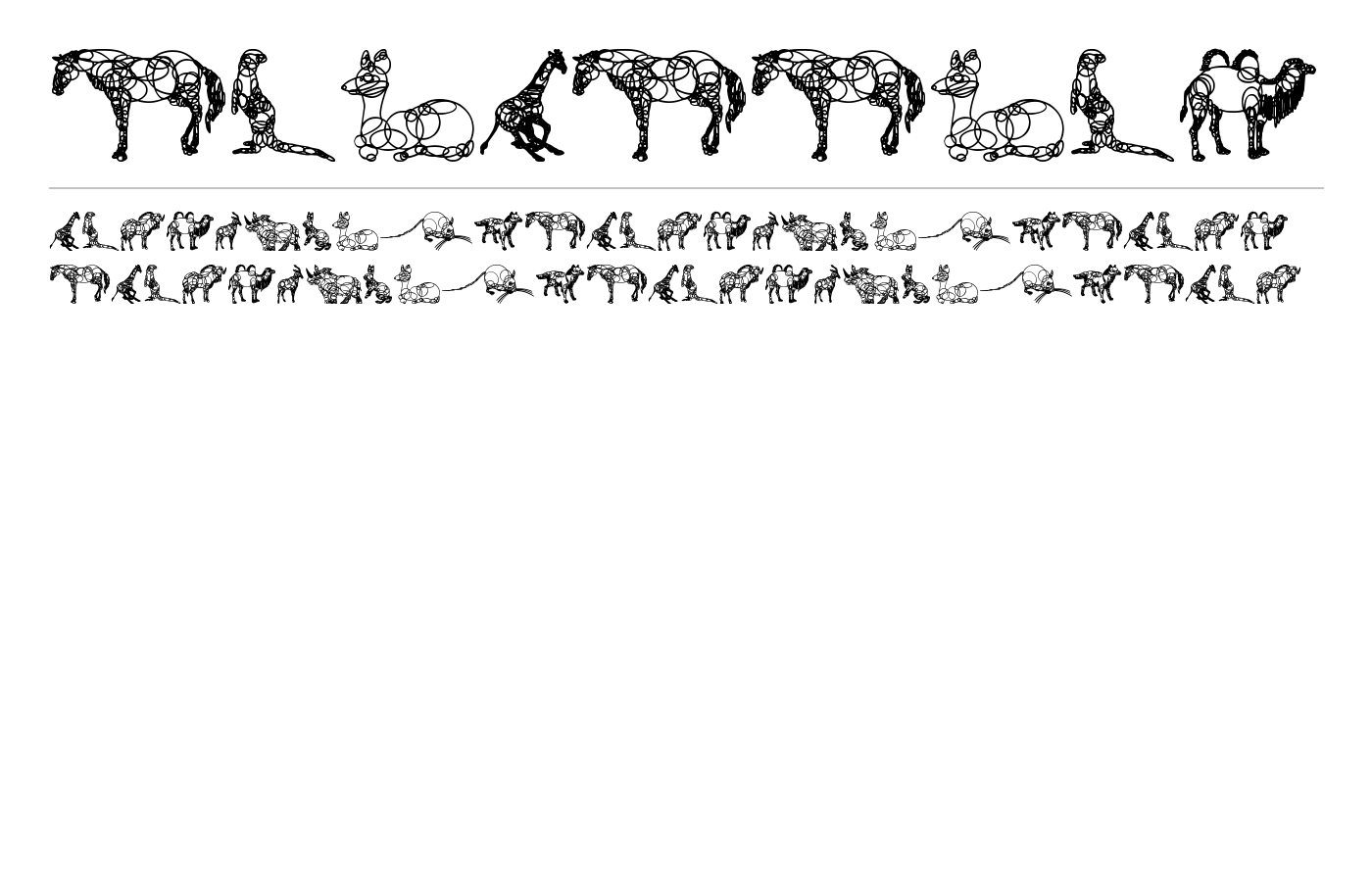
Animaline is a playful and artistic display font composed of intricate animal shapes formed by overlapping circular lines. This decorative typeface is ideal for creative projects, logos, and children’s materials where a whimsical and imaginative vibe is desired. Its unique, illustrative style brings a lively and charming character that captures attention and sparks curiosity.
animaline Font
About animaline Font